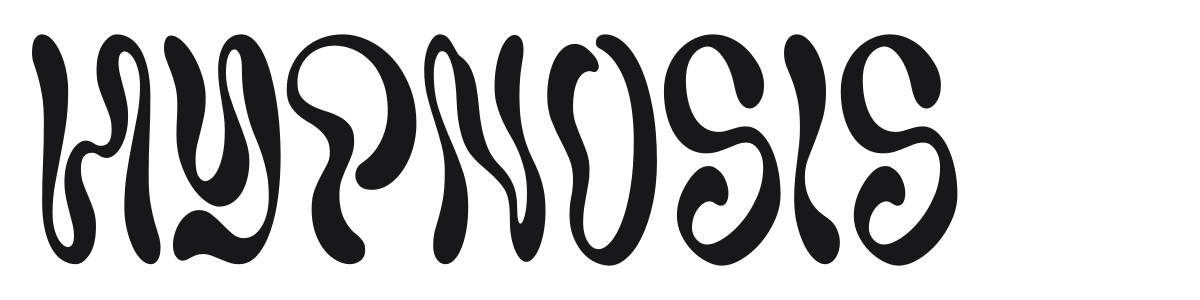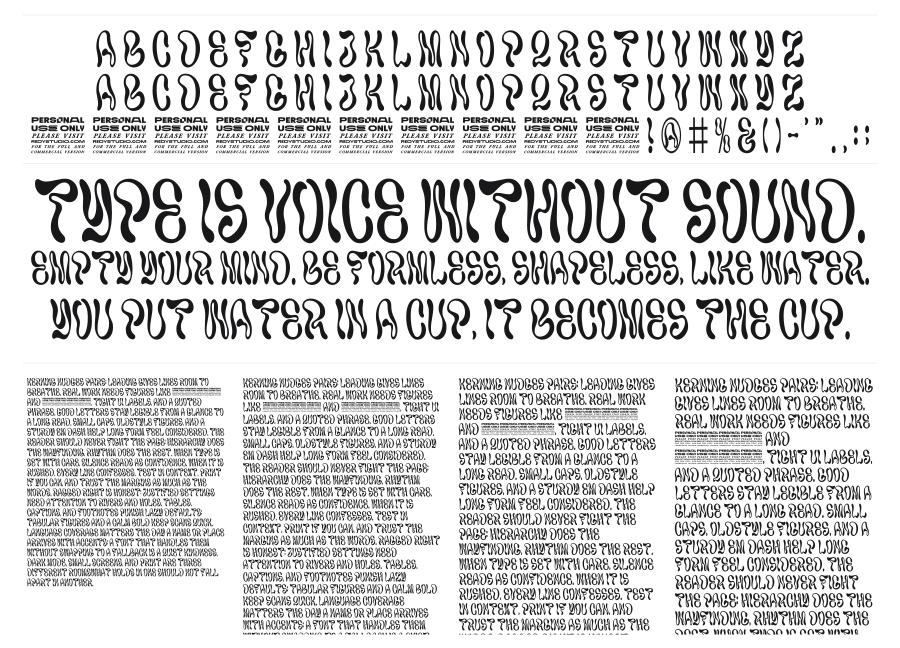
Hypnosis
Hypnosis is a psychedelic display font dripping with 1960s and 70s counterculture energy. Its ultra-bold, blob-like characters swell and press against each other, creating an almost liquid visual rhythm. Strong choice for retro posters, music event branding, or any project that needs an unmistakable groovy personality.